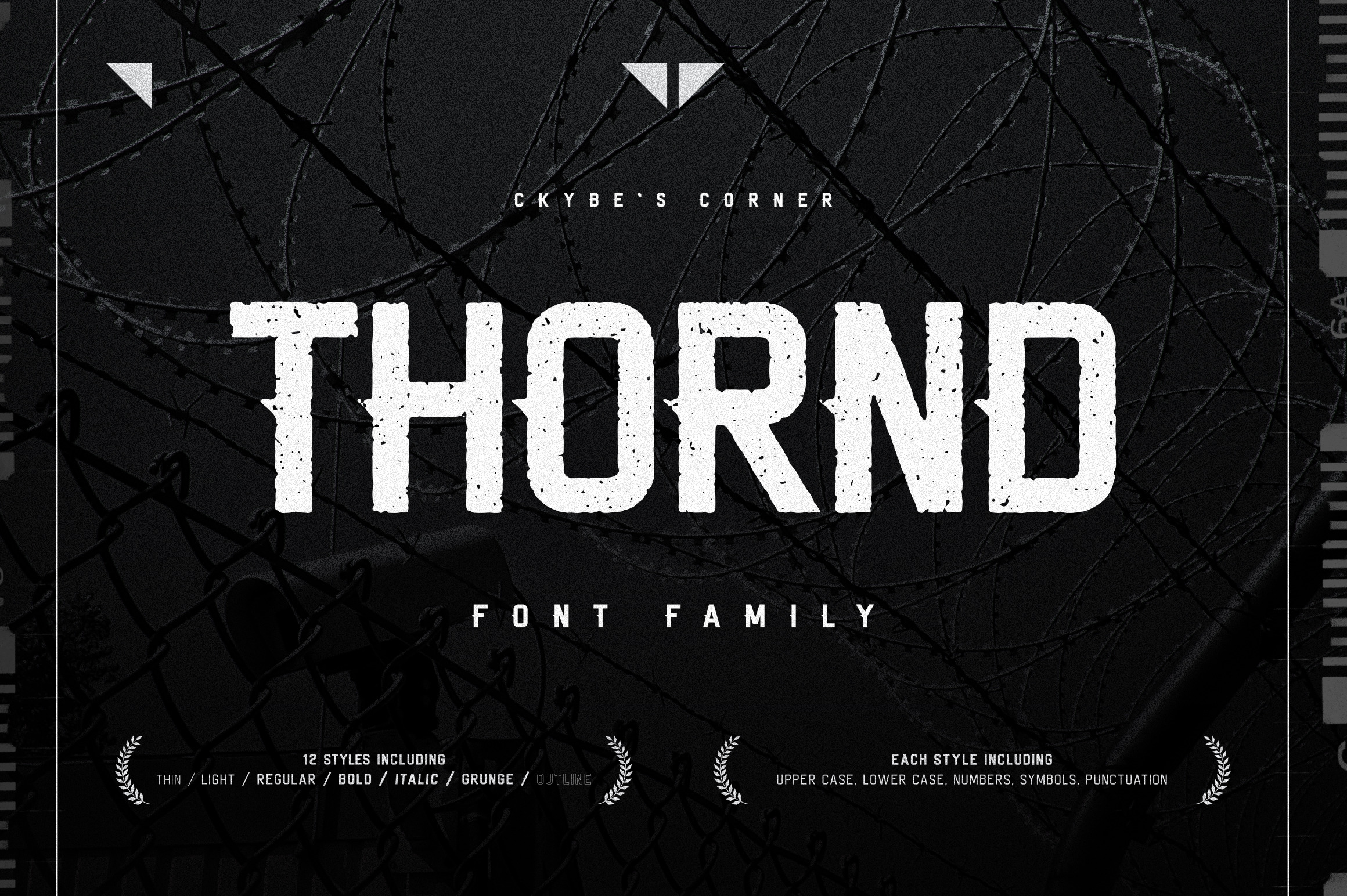
THORND - Sans Serif Font Family
THORND Sans Serif Font Family - Strict condensed font with special thorn-element on each letter of the upper case to make it more powerful. Twelve styles including THIN, LIGHT, REGULAR, BOLD, GRUNGE, OUTLINE. Each style has an Italic version. Each style including letters in Upper Case, Lower Case, Numbers, Symbols and Punctuation.
THORND works great in logotypes, branding, posters, print materials, headlines, quotes, titles. Different weights give you flexible opportunities in typographic and creativity.
KEY FEATURES:
- Four weights: Thin / Light / Regular / Bold
- Three bold styles: Grunge / Outline / Italic
- Each style has an Italic version.